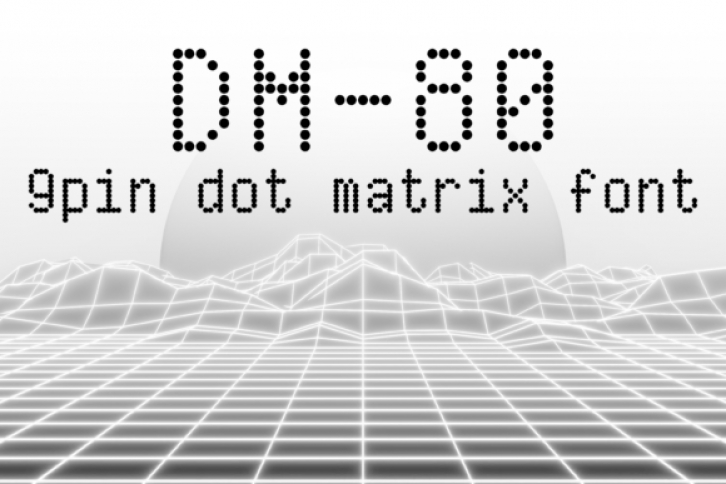
DM-80 is a monospaced font that emulates a 9-pin dot matrix printer.
It comes in two weights, regular and light and features all basic ASCII characters.
Use it for designs that require a retro look reminiscent of an old office document.